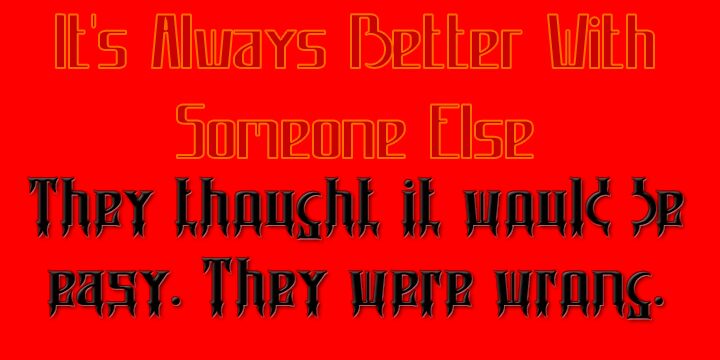
Carannorov
Carannorov by Typesgal is a free Russian-inspired display font with an industrial, sharply condensed build that feels closer to custom signage than conventional text. Its lettering combines long hairline uprights with broad rounded lower sections and blunt horizontal strokes, creating repeated shifts in weight and a stark architectural silhouette across the visible letters.
Music posters and technology packaging draw on its mechanical severity, yet the same towering proportions can lend fashion editorials and event graphics for underground venues a deliberately strange Cyrillic-influenced accent. It is most convincing as lettering for a stark poster title.